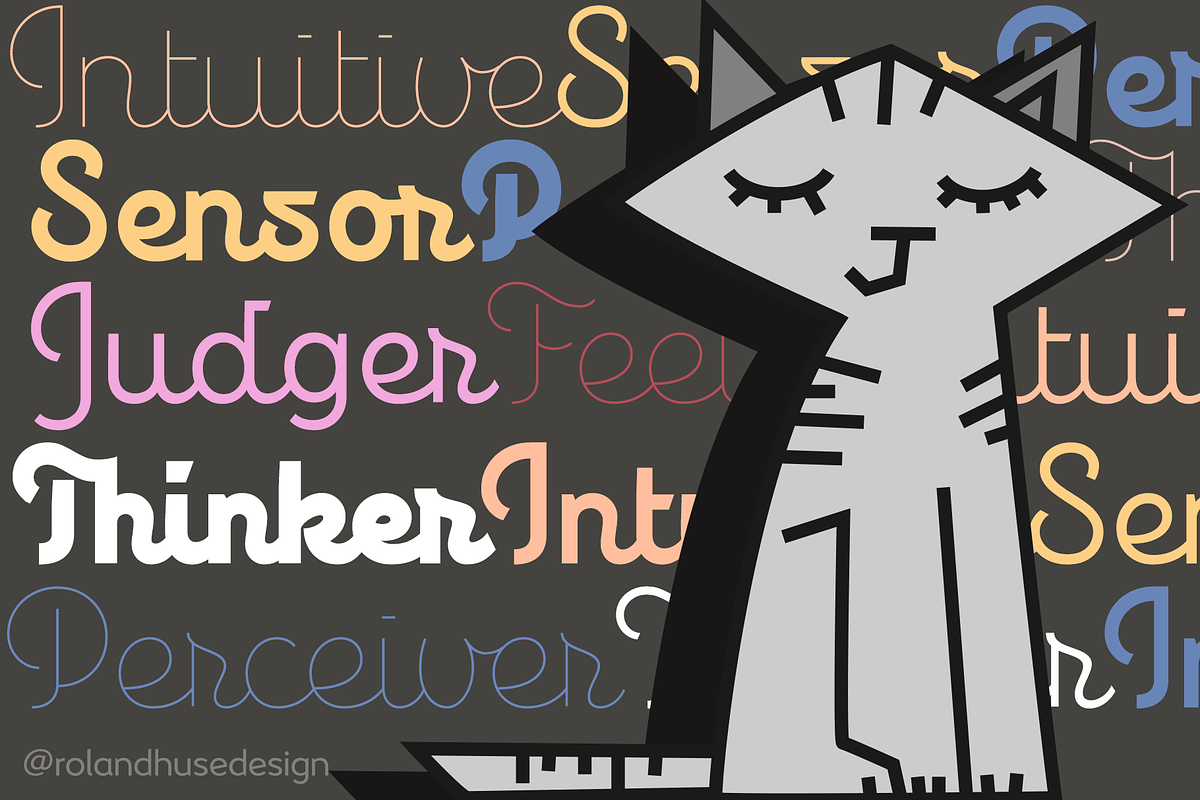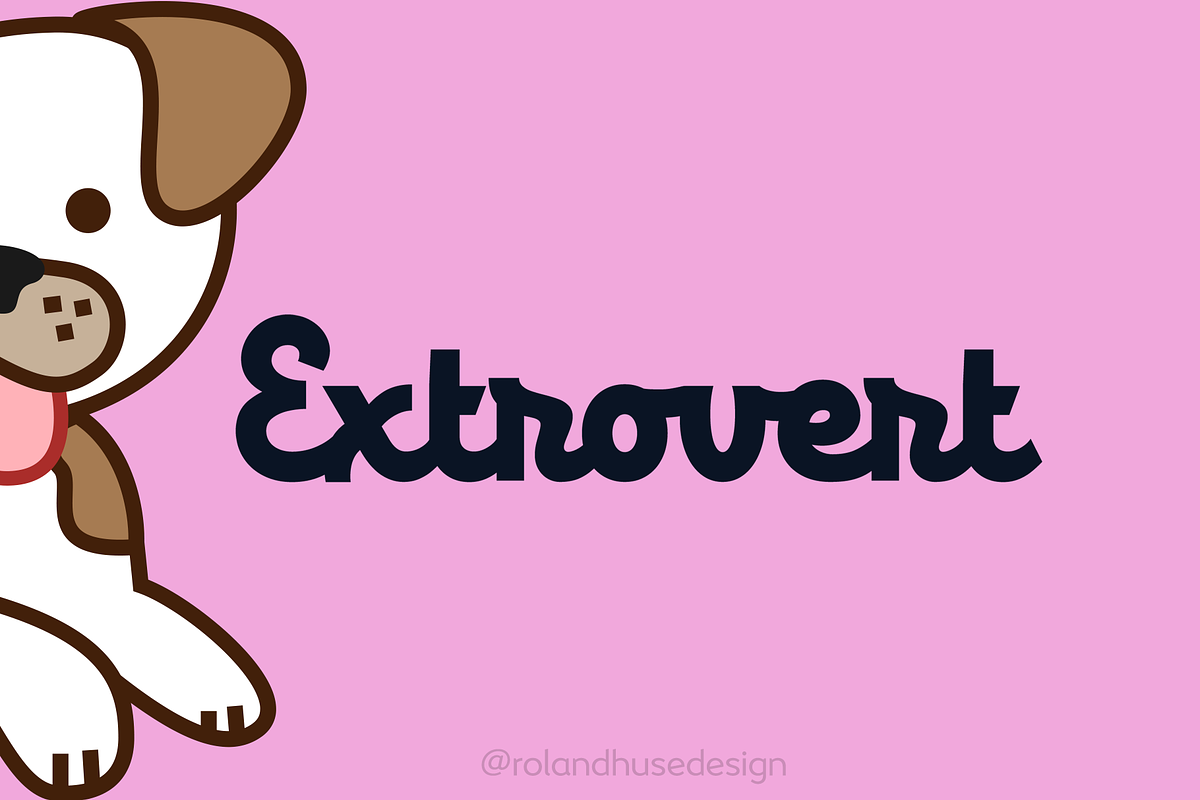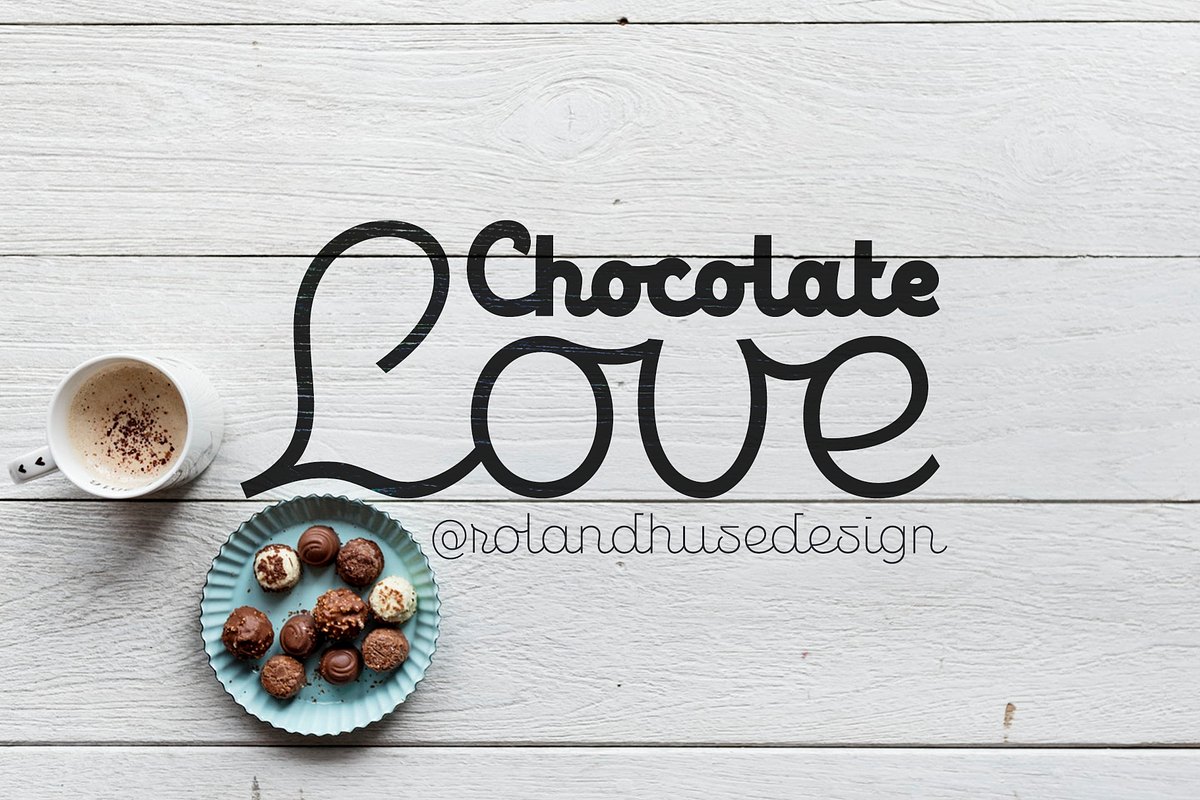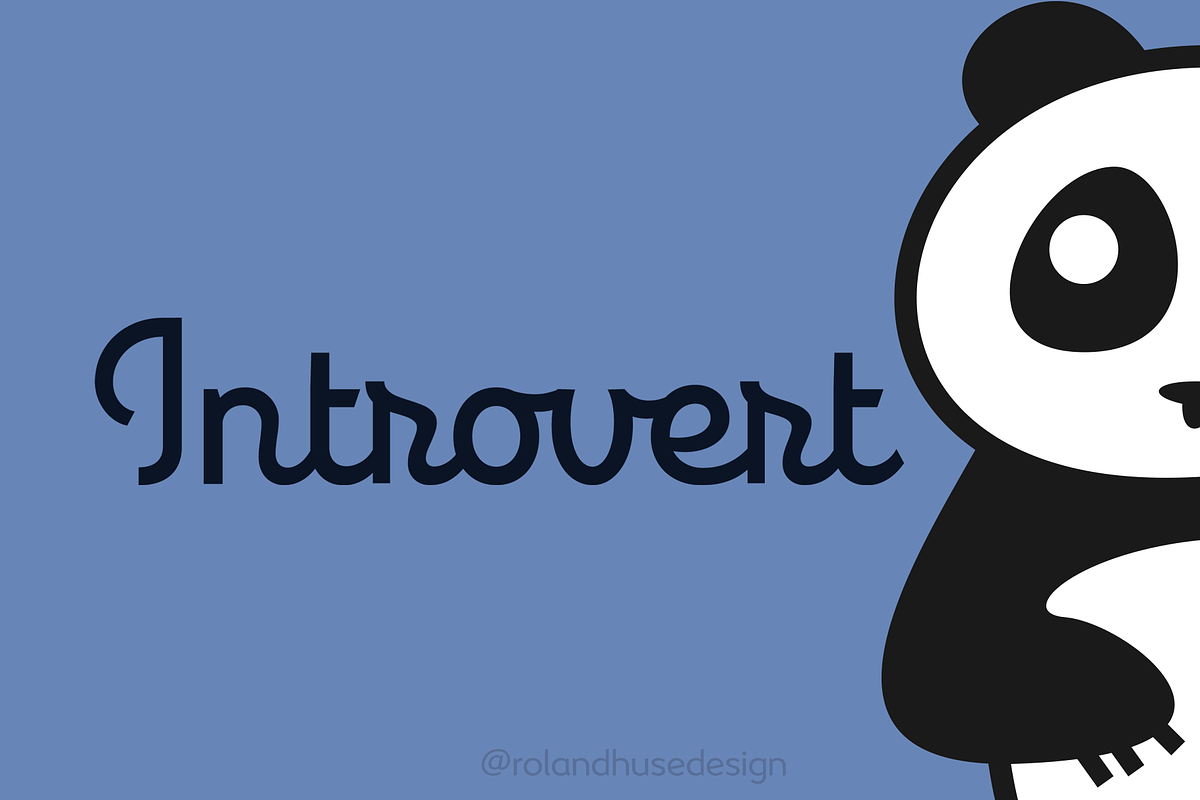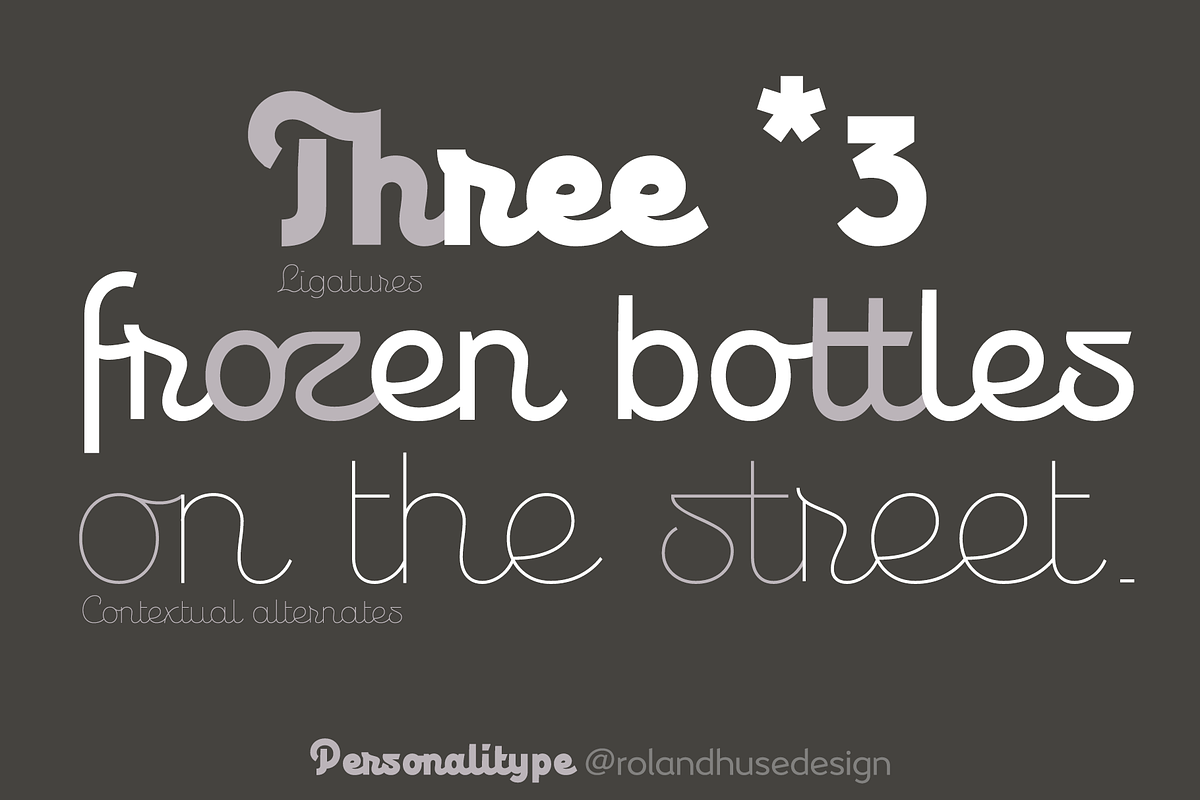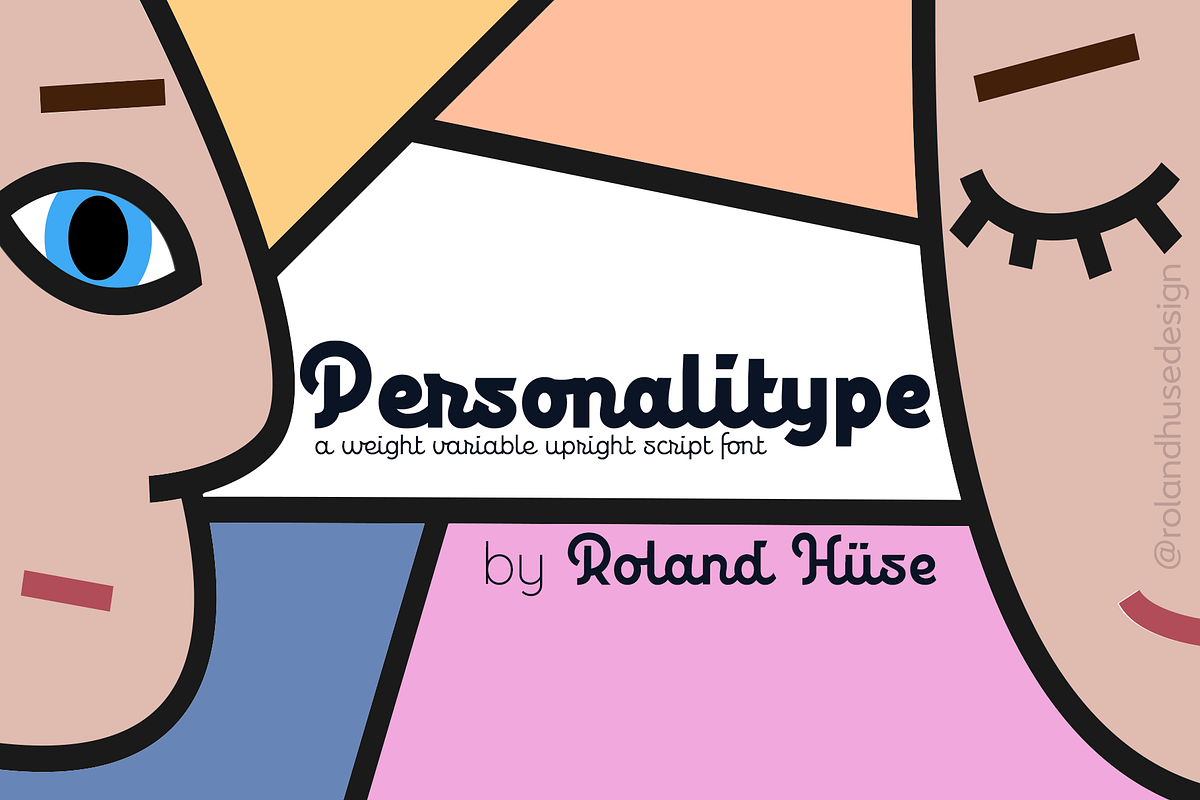
Personalitype Variable Script Font
PERSONALITYPE is a weight variable upright script font.
It comes with exported Light, Regular, Bold and Black instances and the variable GX font file. There are some contextual alternates and ligatures for smooth connections. Please make sure you have "Contextual Alternates", "Standard Ligatures" and optionally, "Terminal Forms" enabled while using this font.
- Contains all Western and Eastern European language accents and characters.
- There are some contextual alternates and ligatures for smooth connections.
- Contains all Western and Eastern European language accents and characters.
Why Personalitype Variable Script Font is worth a look
Personalitype Variable Script Font by Roland Huse Design fits naturally into Branding, posters, packaging, typography.